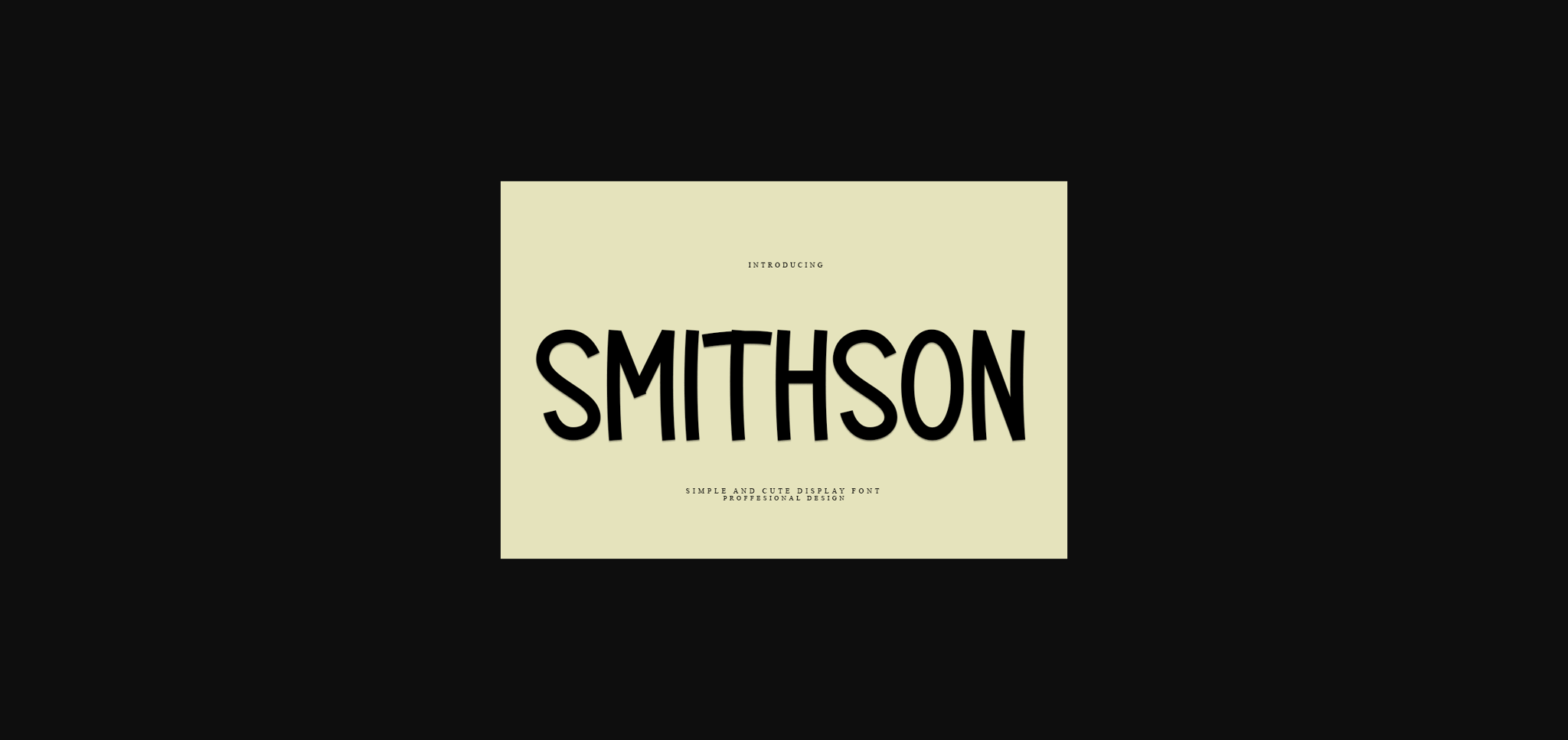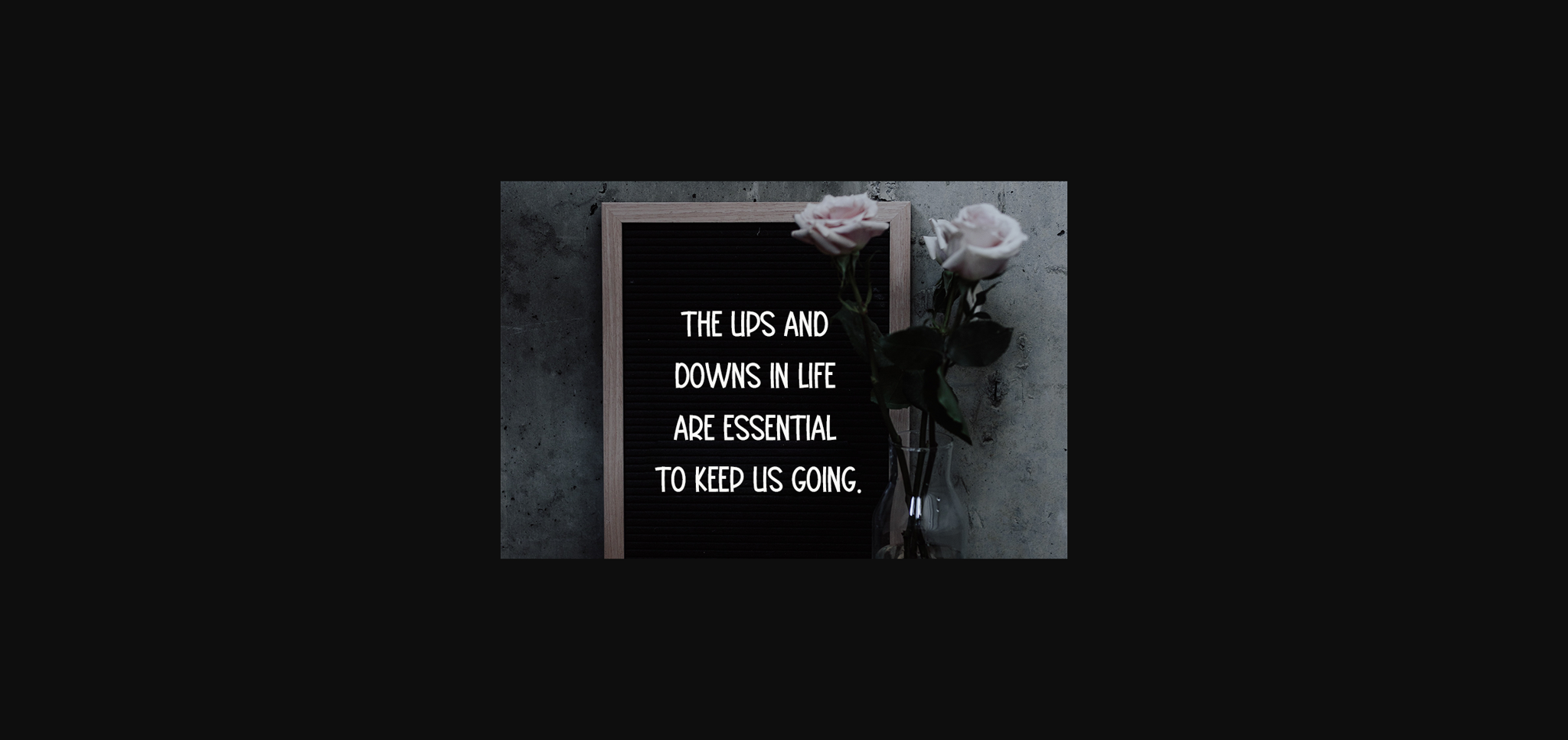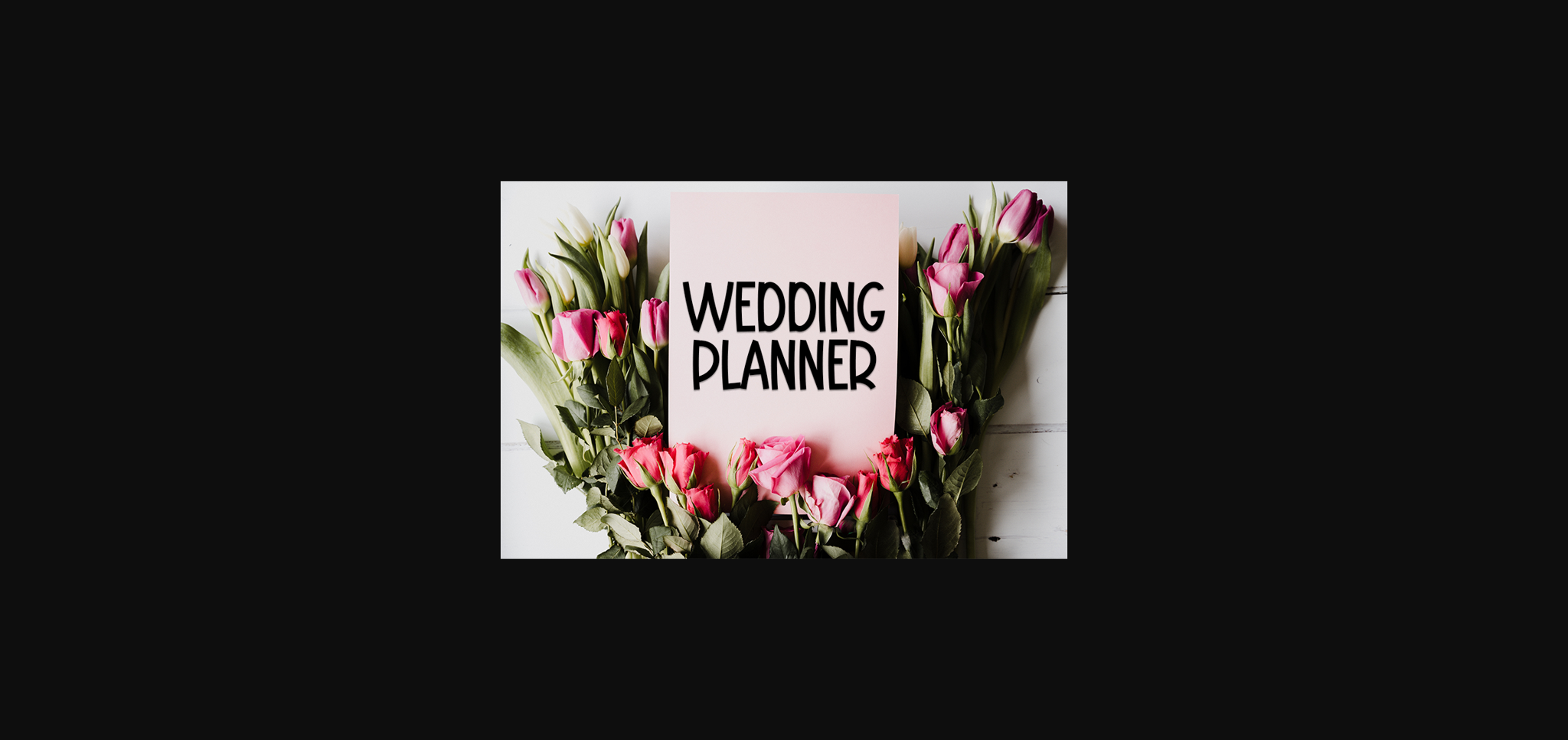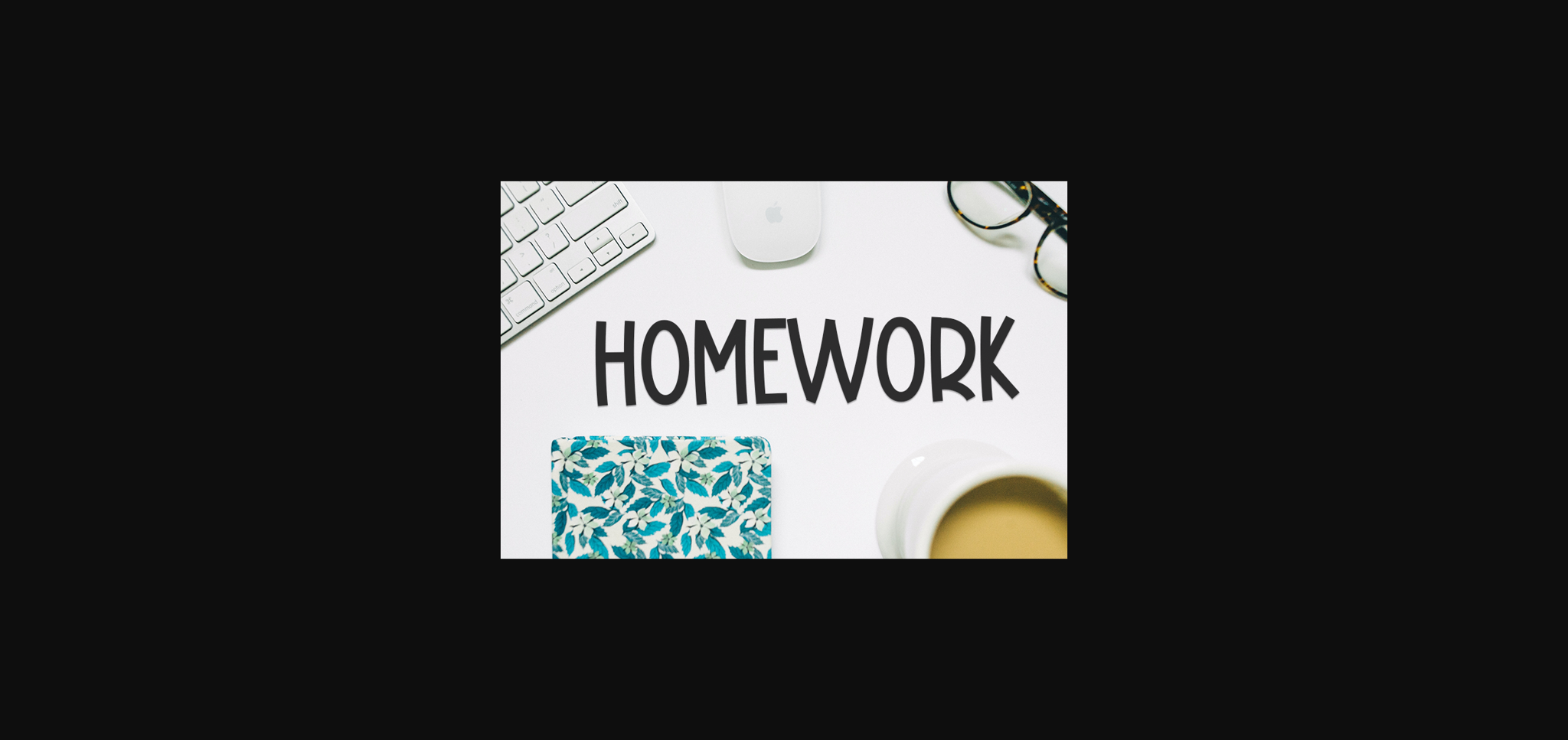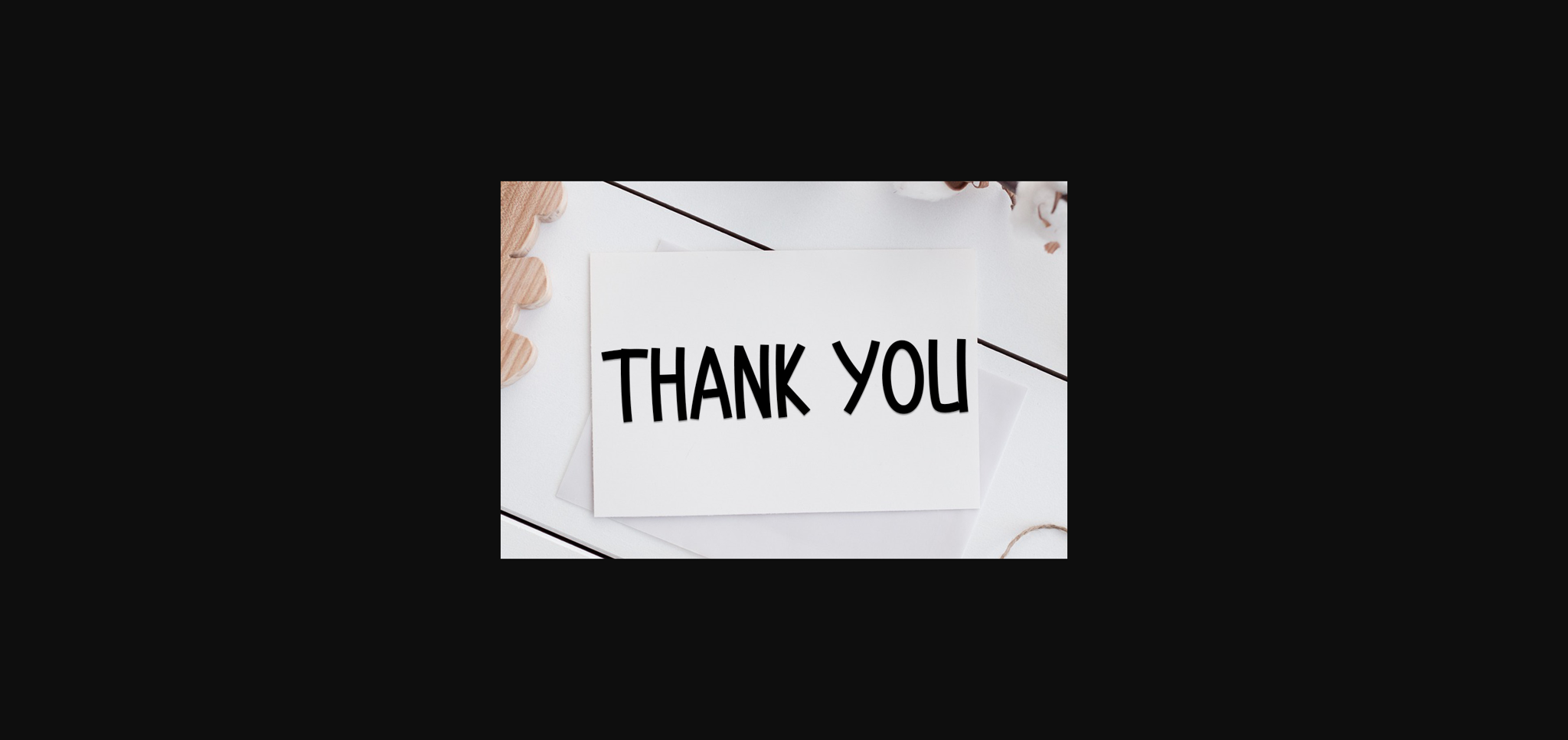
HomeSans Serif FontsSmithson Font Sans Serif Fonts Smithson Font FacebookXPinterestWhatsApp 1 of 7 ... Smithson Font Poster 2... Smithson Font Poster 3... Smithson Font Poster 4... Smithson Font Poster 5... Smithson Font Poster 6... Smithson Font Poster 7... About Smithson Font Smithson is a neat and beautiful handwritten font described by an elegant touch, perfect for your favorite projects. Fall in love with its incredibly distinct and timeless style, and use it to create spectacular designs! DOWNLOAD NOW People also explored Amelina Duo Font Pinky Funky Font Cucumber Font Arcticfunk Font Brodoth Font Molend Font Rallia Irma Font Smile House Font Free Play Font 259 0 TagsSmithson Font Previous articleOrange FontNext articleThicker Font LEAVE A REPLY Cancel reply Comment: Please enter your comment! Name:* Please enter your name here Email:* You have entered an incorrect email address! Please enter your email address here Website: Save my name, email, and website in this browser for the next time I comment. Personal Use Free Waverly Date Personal Use Free Read more about this font Catandra Script Personal Use Free Read more about this font Eva Personal Use Free Read more about this font Electroharmonix Personal Use Free Read more about this font BLOG Free vs Paid Fonts: Why Investing in Premium Fonts Is Worth It Free vs Paid Fonts: Why Premium Fonts Are Worth It in 2025 The debate of free vs paid fonts continues in the design world. While... Where to Buy American Fonts Online in 2024 Best Fonts for T-Shirt Design – Top 2025 Picks Top 7 Google Fonts Alternatives for Faster and Privacy-Friendly Web Design (2025)